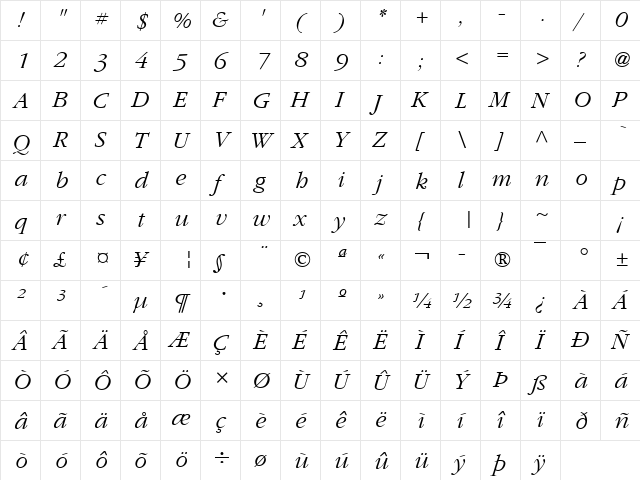
Gourmand Italic
Design Context for Gourmand Typeface
Gourmand is a composed and adaptable typeface that performs quietly and consistently across a wide range of design contexts. Its italic angle brings a sense of urgency and motion to the letterforms.
Pro Tip: Try Gourmand for annotation and caption copy alongside an upright companion — the contrast in angle creates a dynamic but ordered typographic system.